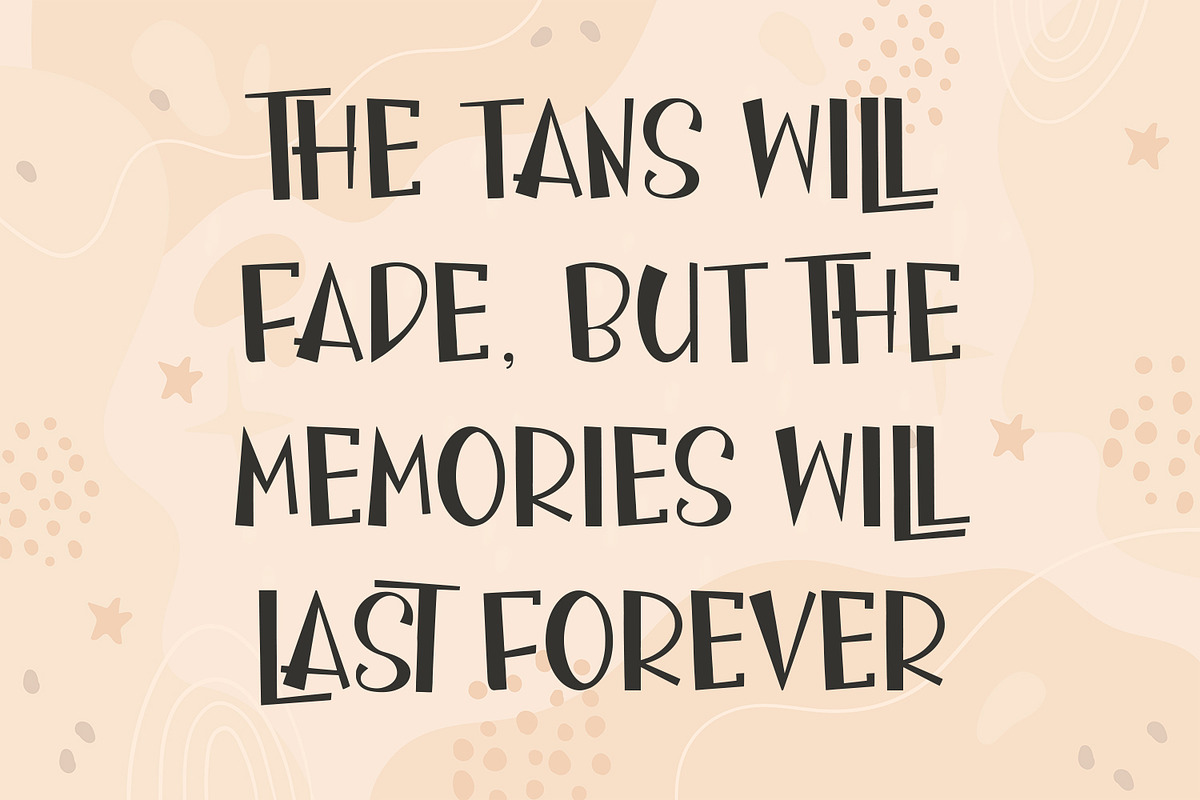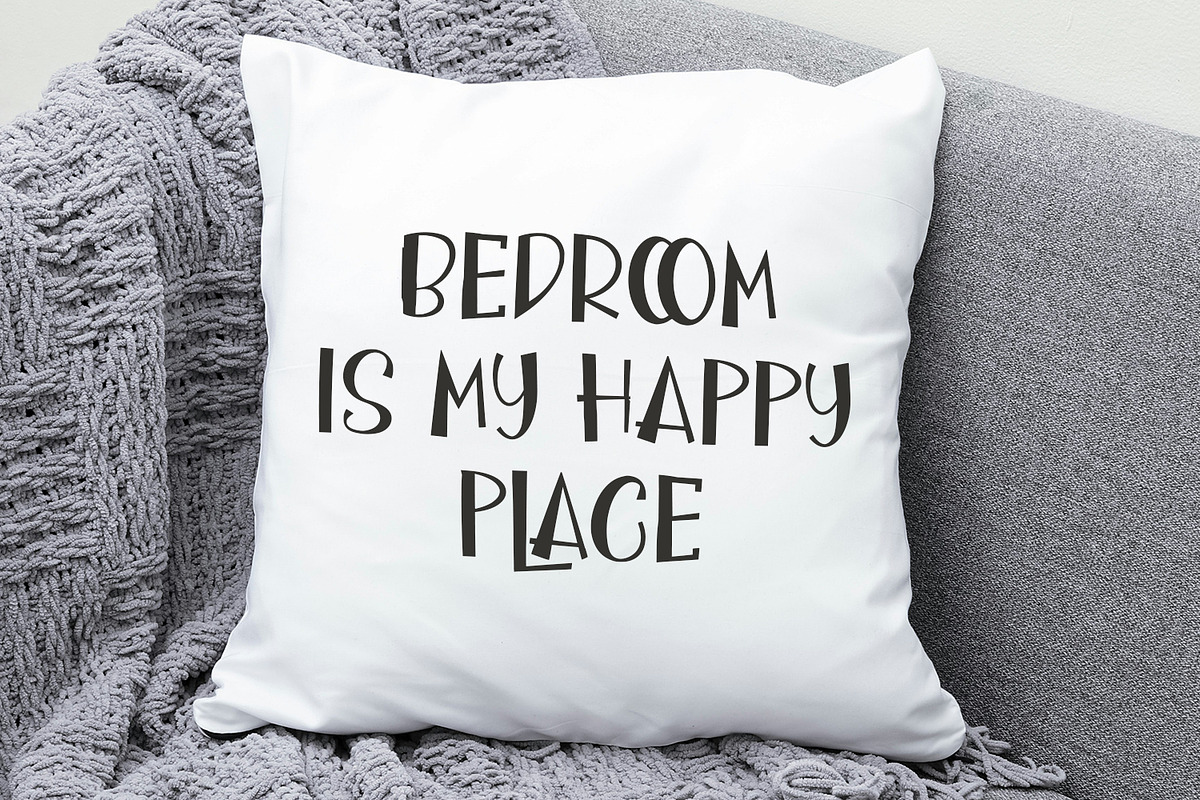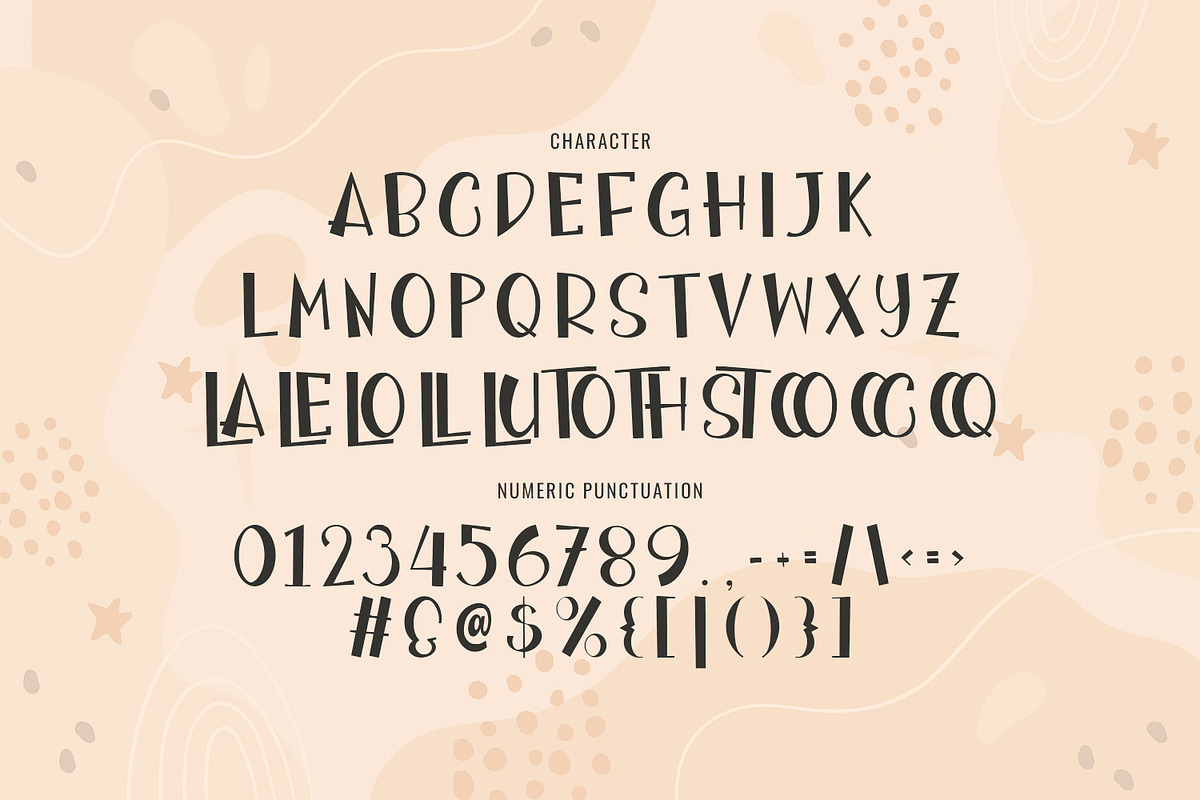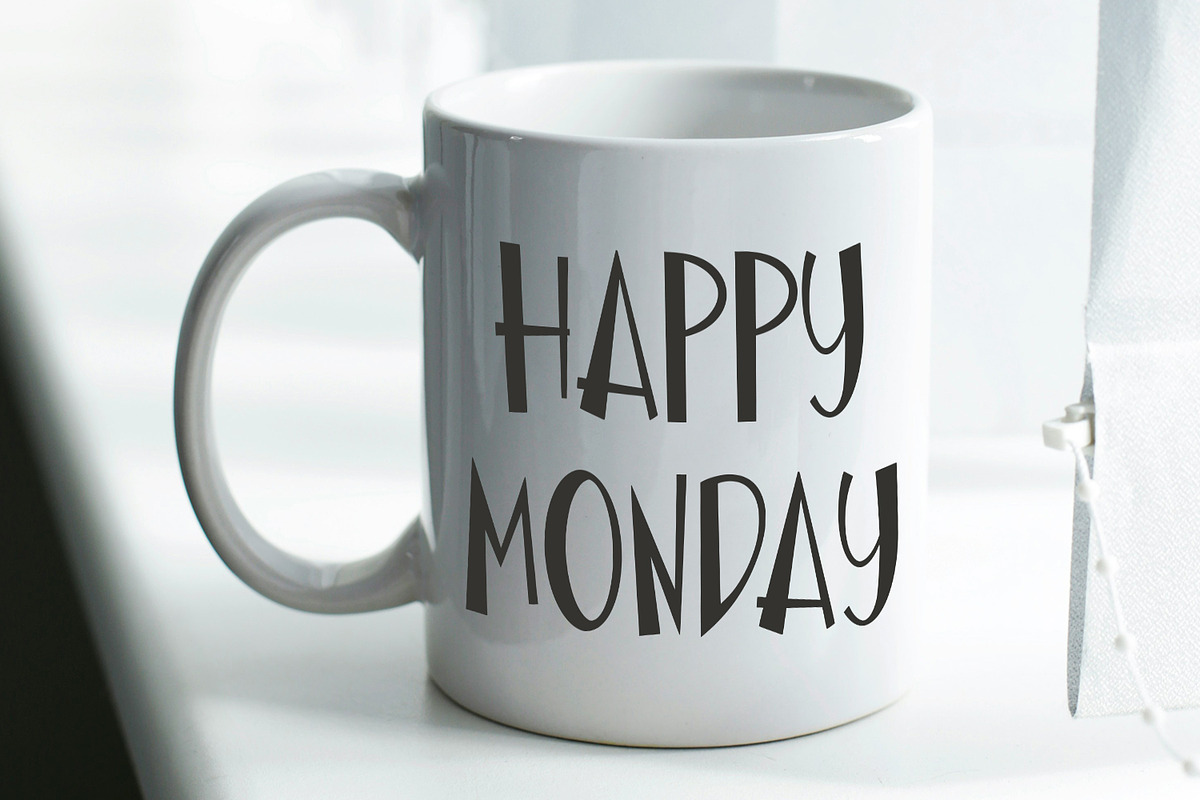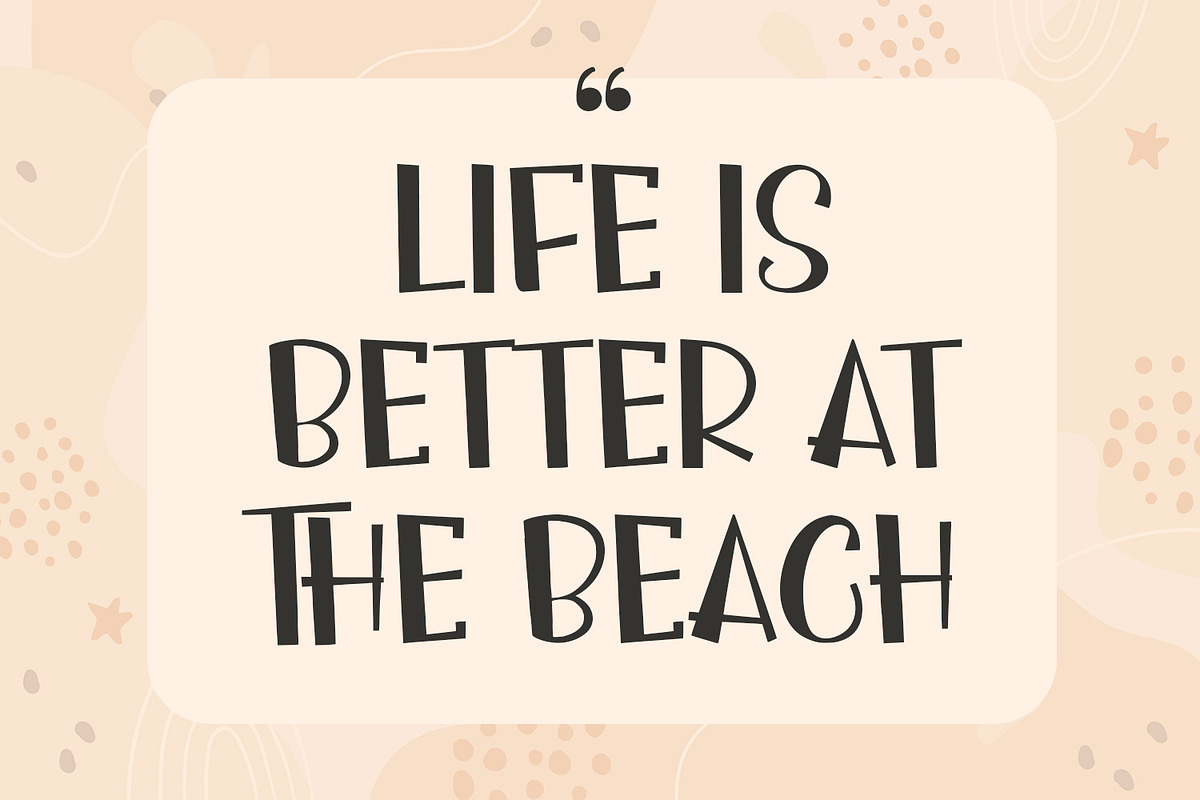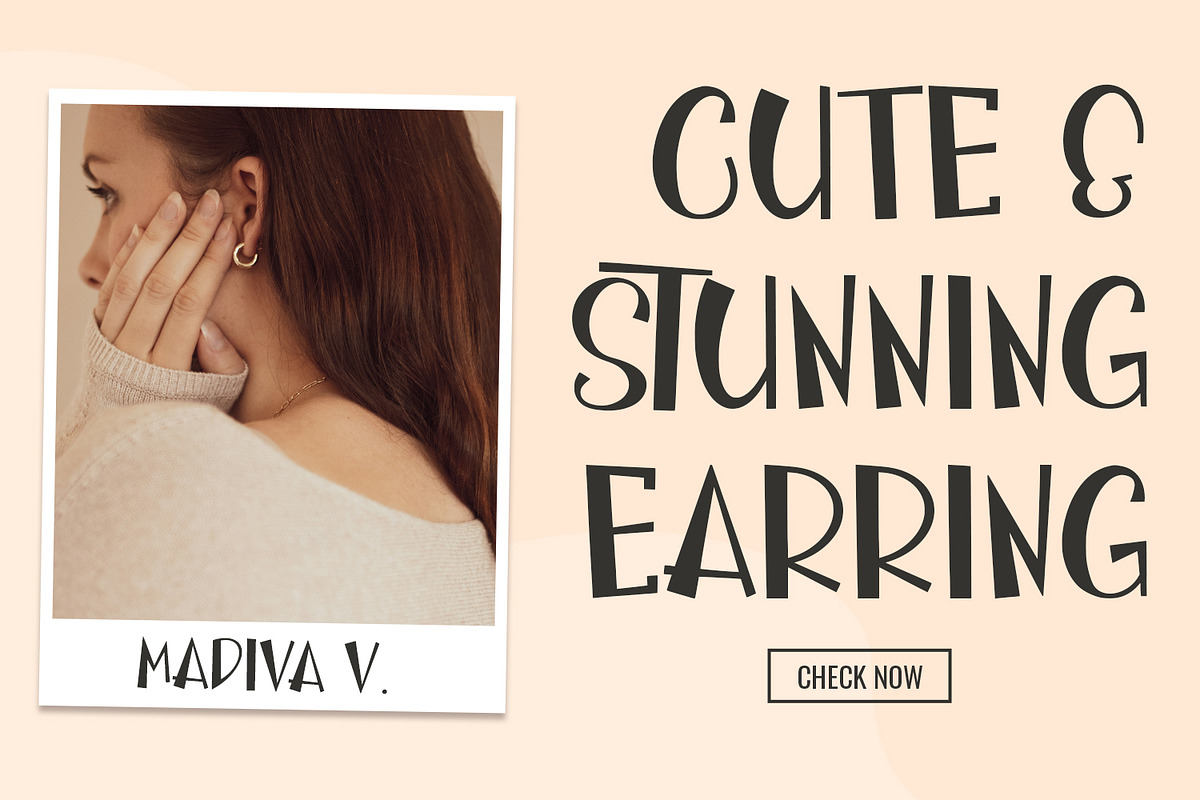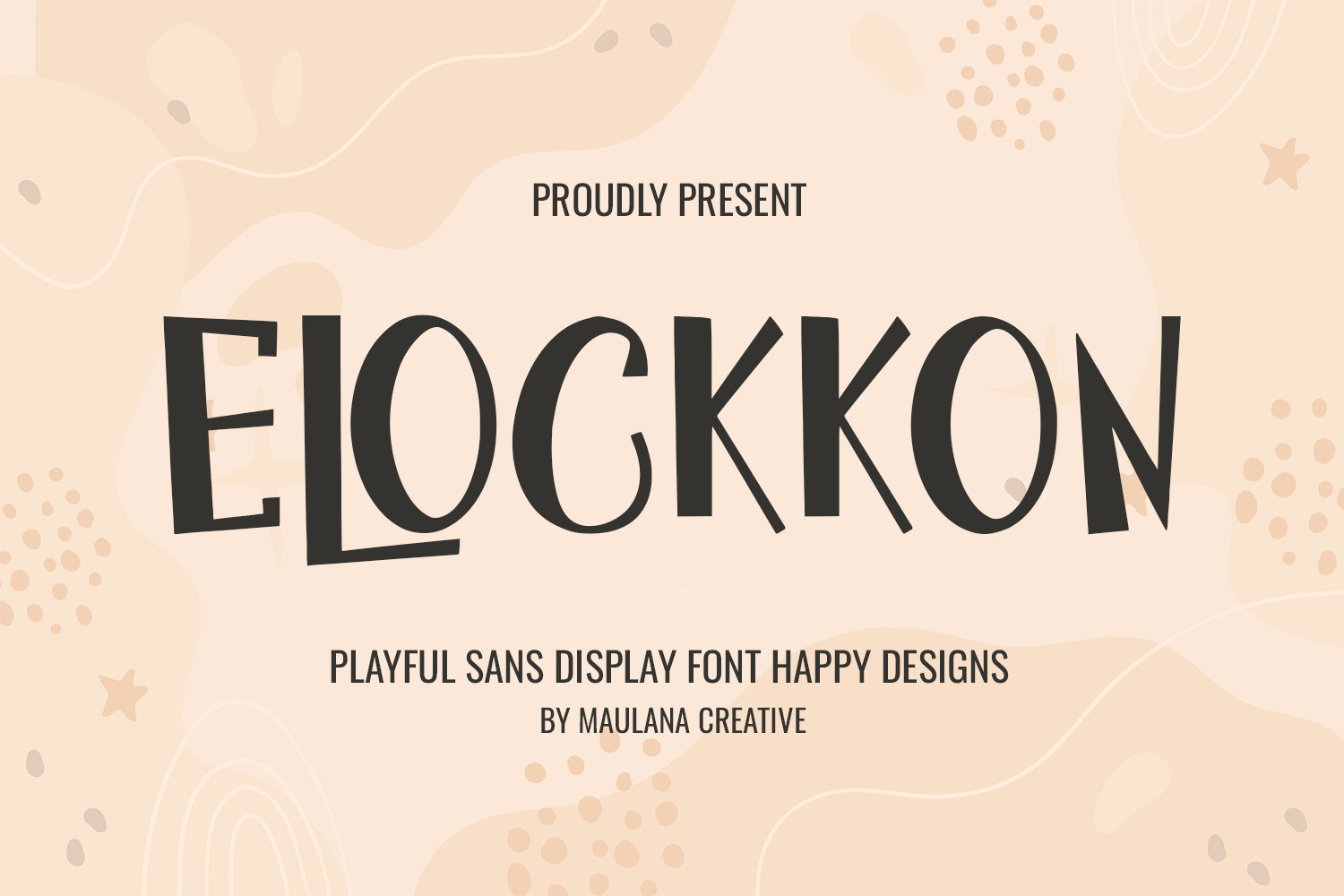
Elockkon Playful Sans Display Font
Say goodbye to boring typography and hello to Elockkon, a wonderfully playful and unique sans-serif display font designed to inject joy and personality into all your creative projects!
Elockkon features bold, eye-catching shapes with an irregular, hand-drawn look that instantly grabs attention. It's perfect for conveying a sense of fun, friendliness, and authenticity.
- Merchandise & Prints: Mugs, T-shirts, tote bags, and personalized gifts (as seen in the "Happy Monday" and "Bedroom is my Happy Place" examples).
- Home Decor & Crafts: Wall art, vinyl decals, pillow covers, and sublimation projects.
- Quotes & Social Media: Creating viral, shareable content, motivational quotes, or fun holiday posts.
- Branding & Logos: Especially for brands targeting children, lifestyle, beach, or casual consumer goods.
- Packaging & Advertisements: Adding a fresh, memorable, and energetic touch.
- Full Uppercase Set
- Numerals & Extensive Punctuation
- Irregular & Friendly Aesthetic
- Easy to Read despite its playful style.